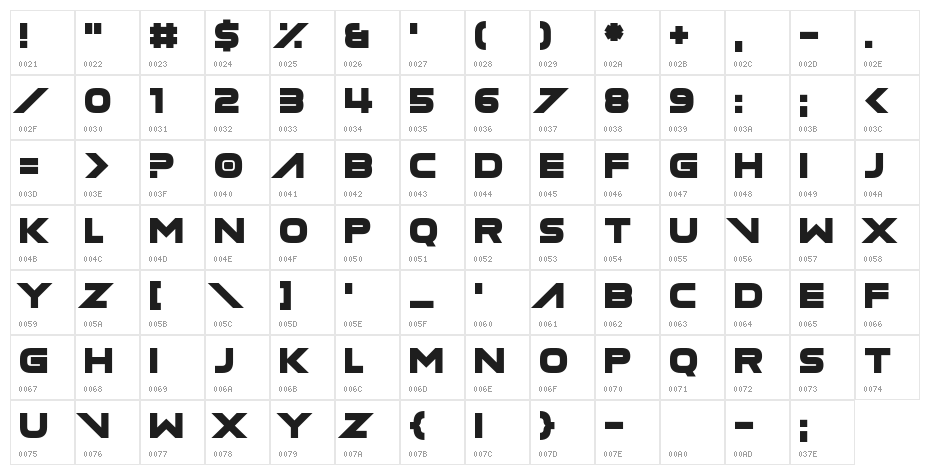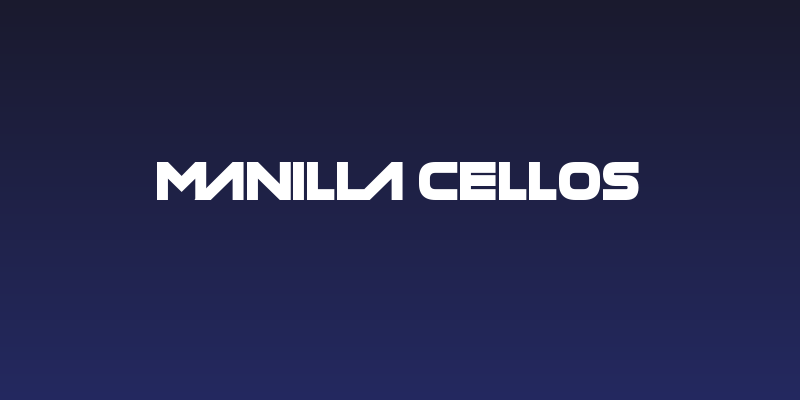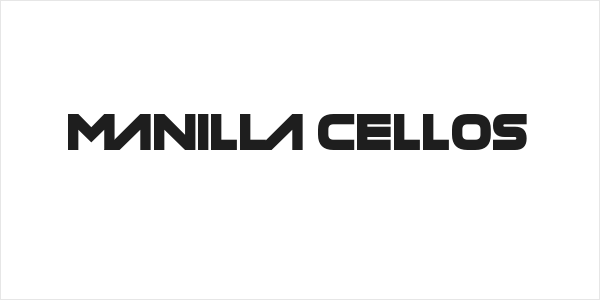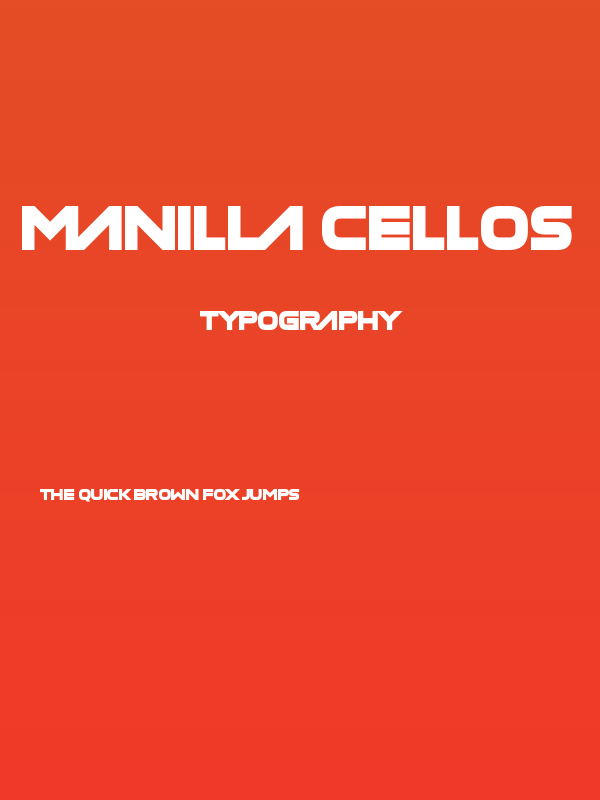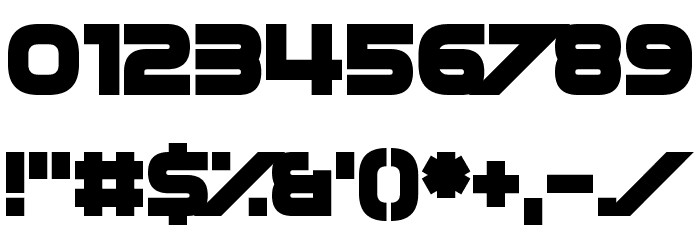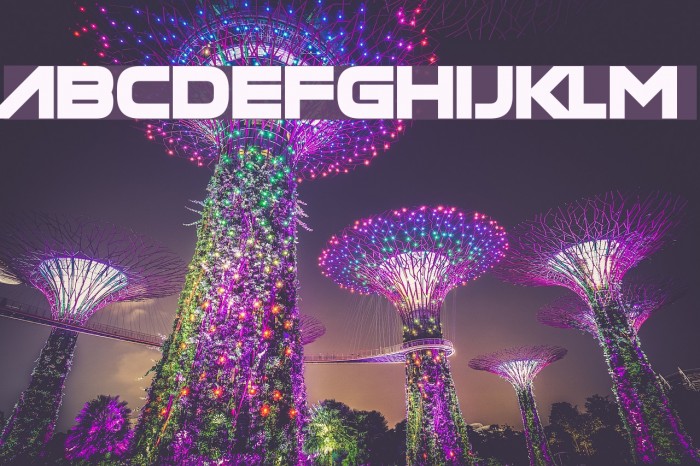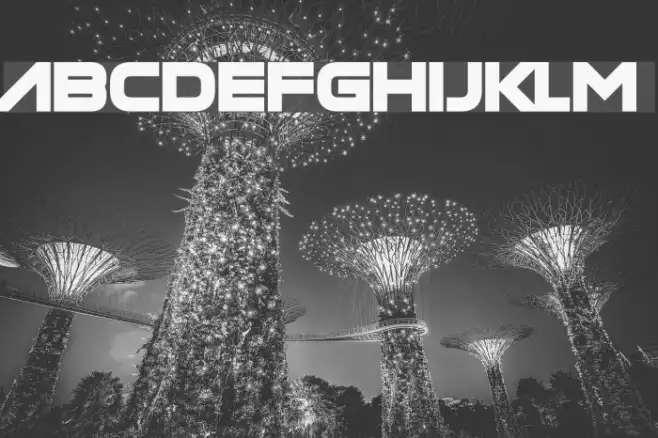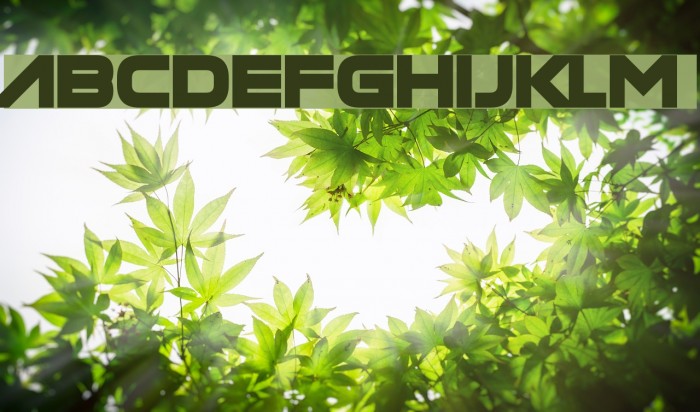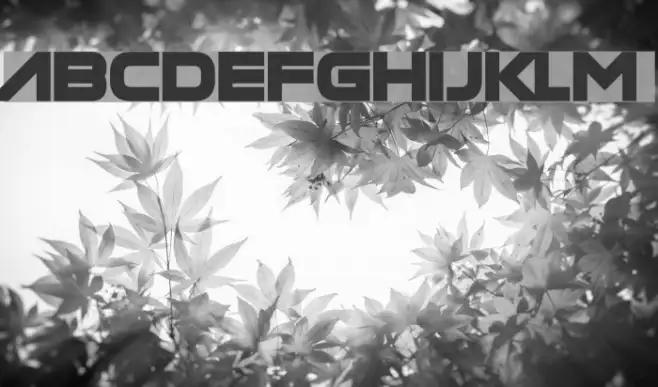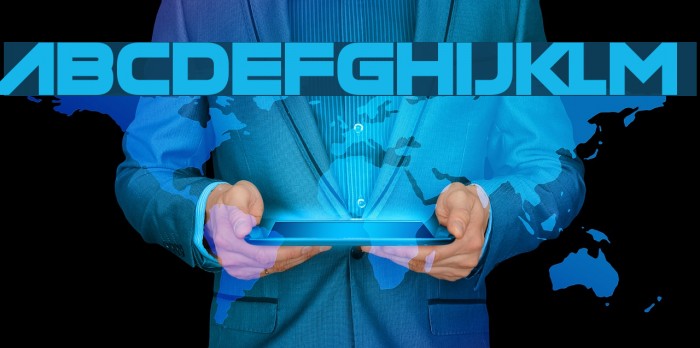
Manilla Cellos Font
Manilla Cellos Description
This font features a bold, geometric design with sharp angles and a modern aesthetic. The characters are uniformly wide, creating a strong and impactful presence. The uppercase letters are particularly striking, with a futuristic feel that is enhanced by the consistent stroke width. The numbers and special characters maintain this boldness, ensuring a cohesive look across all elements. The font's style is ideal for making a statement, with its clean lines and contemporary vibe.
| Proposed Projects | Ideal for branding, headlines, posters, and any project requiring a strong, modern look. |